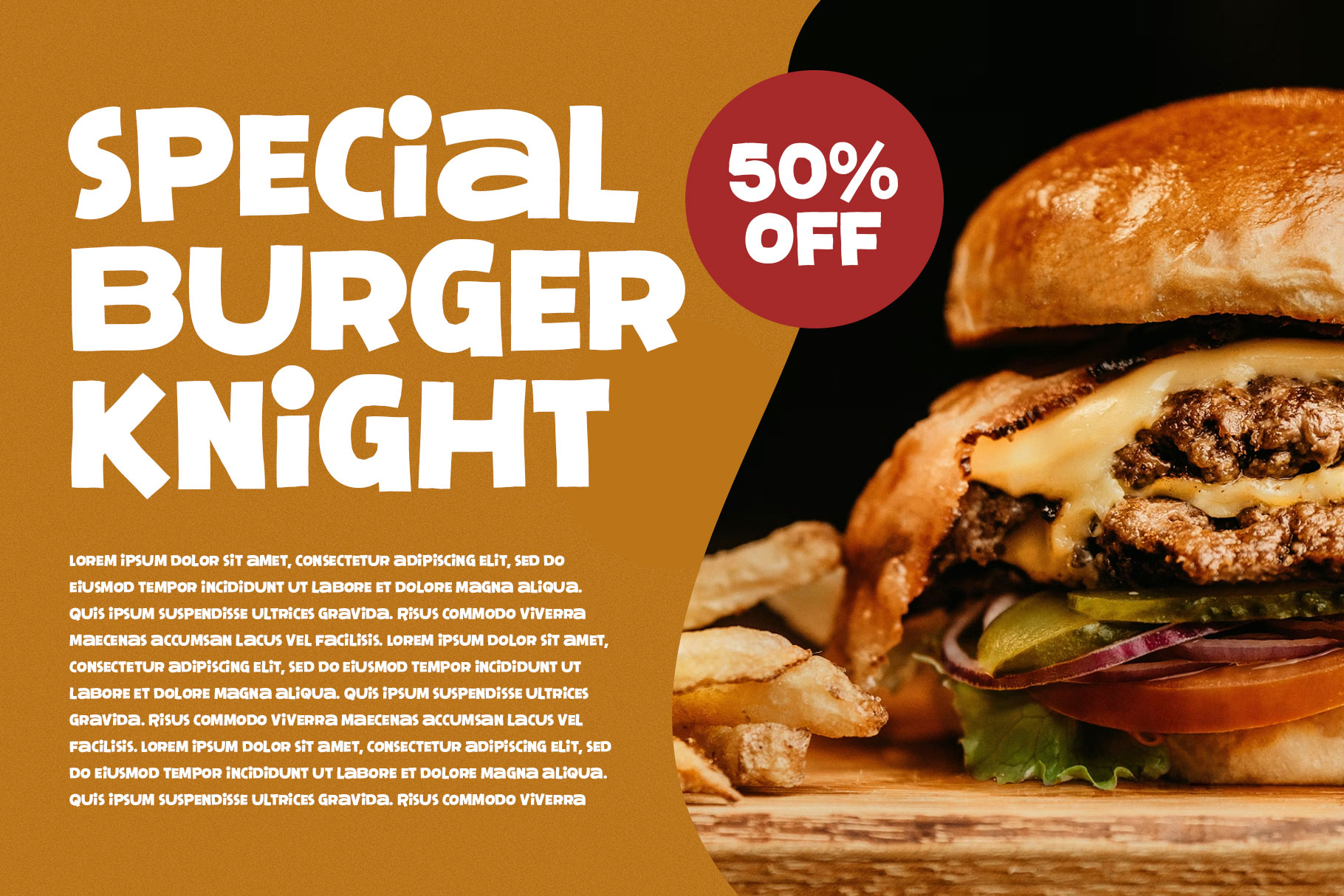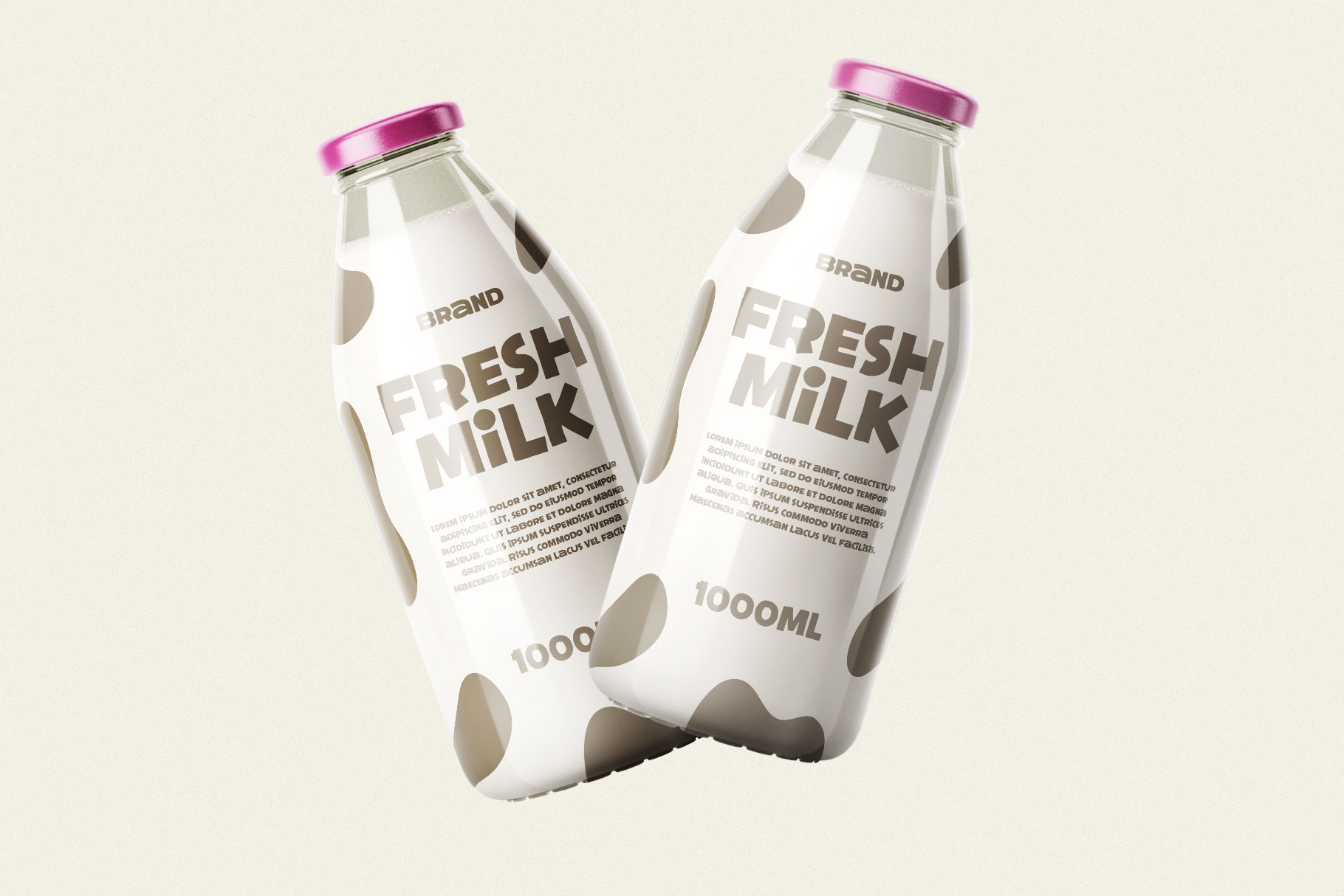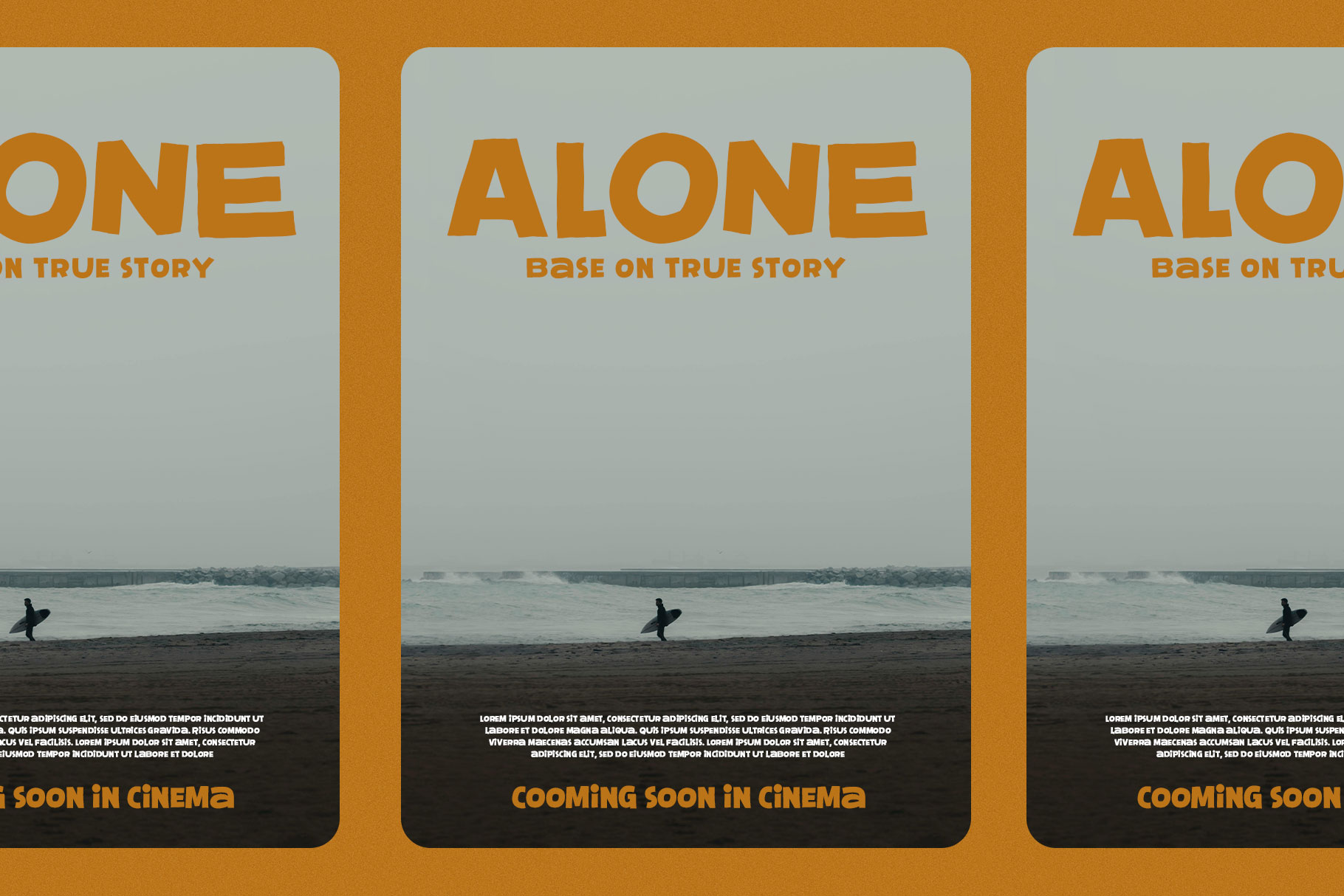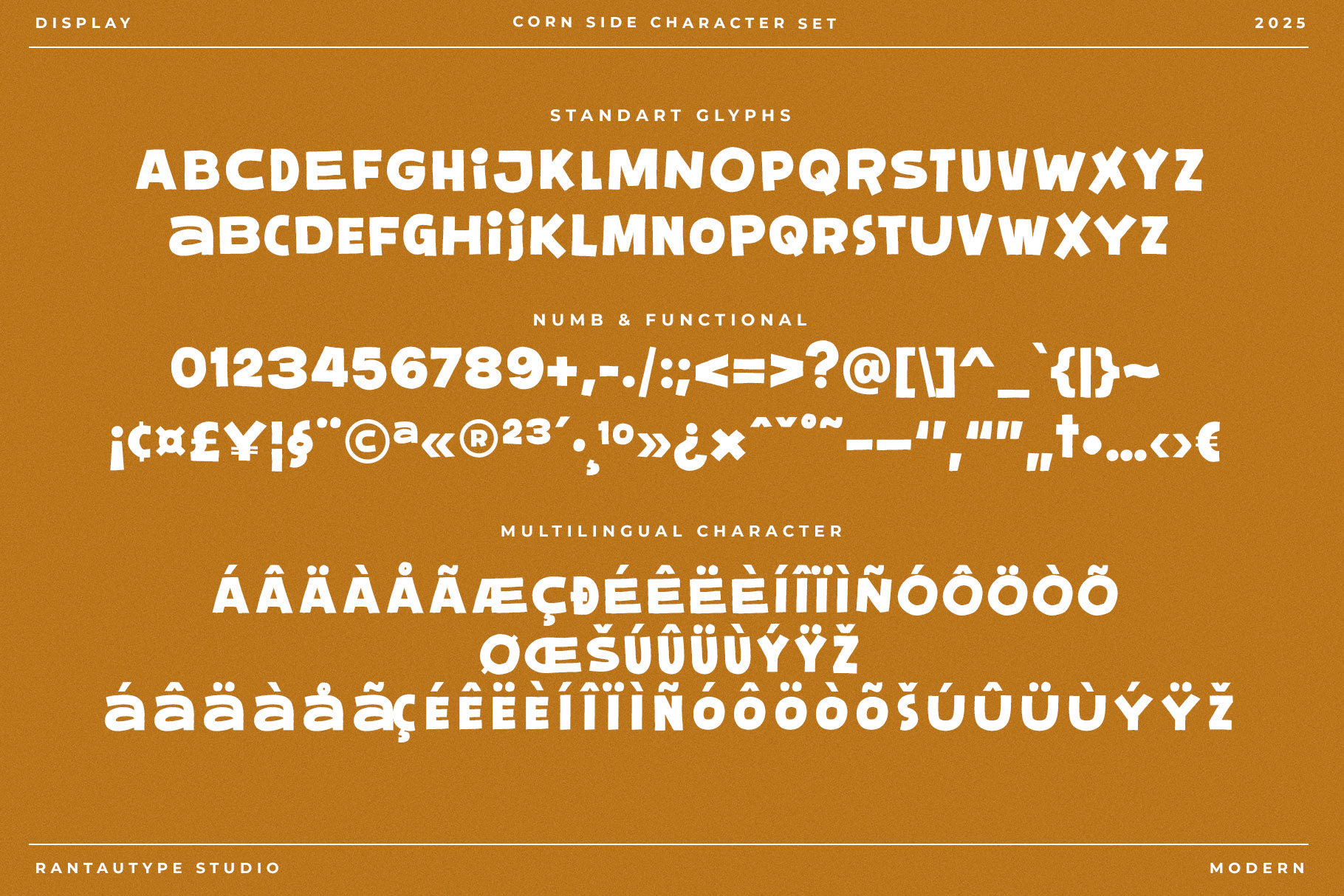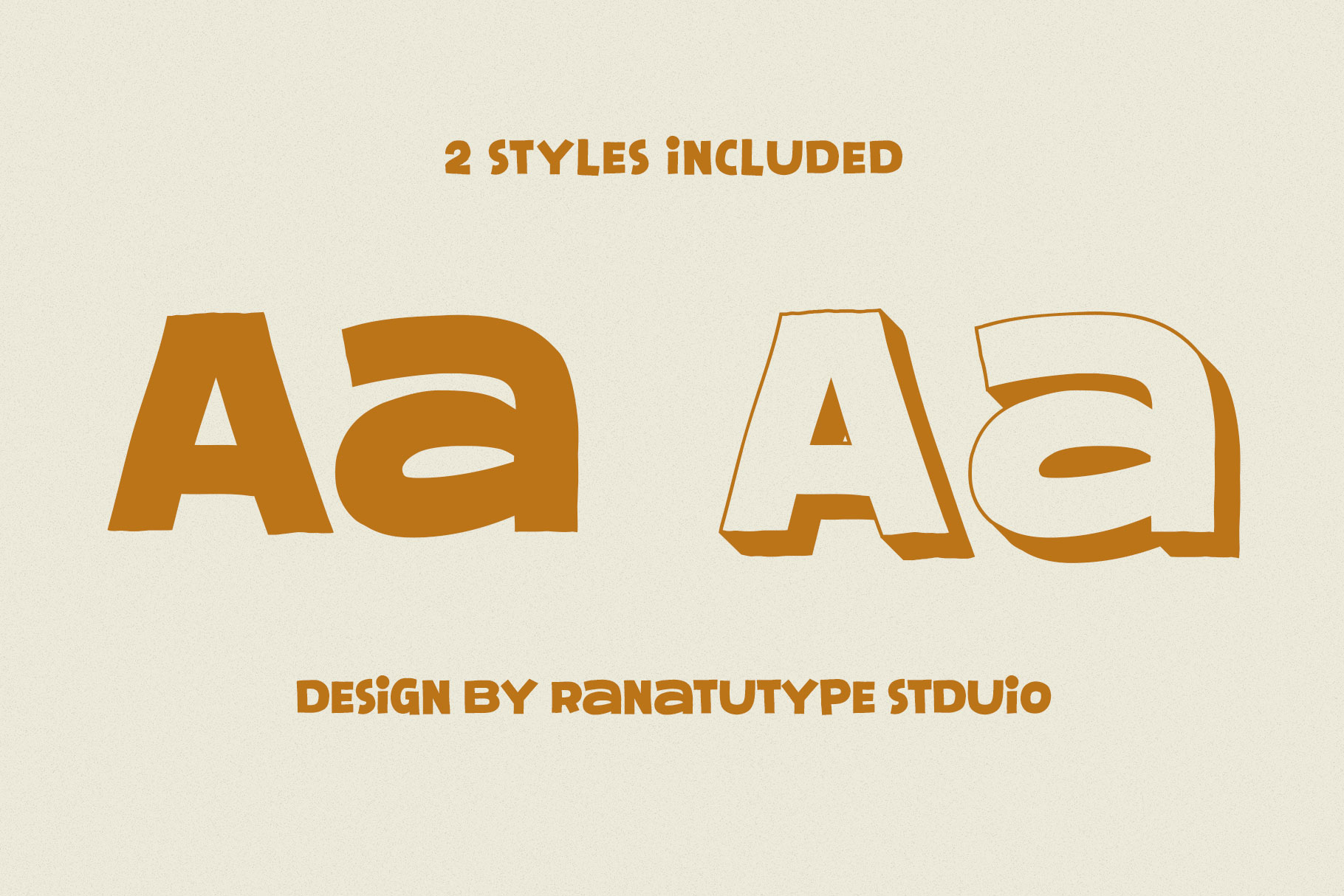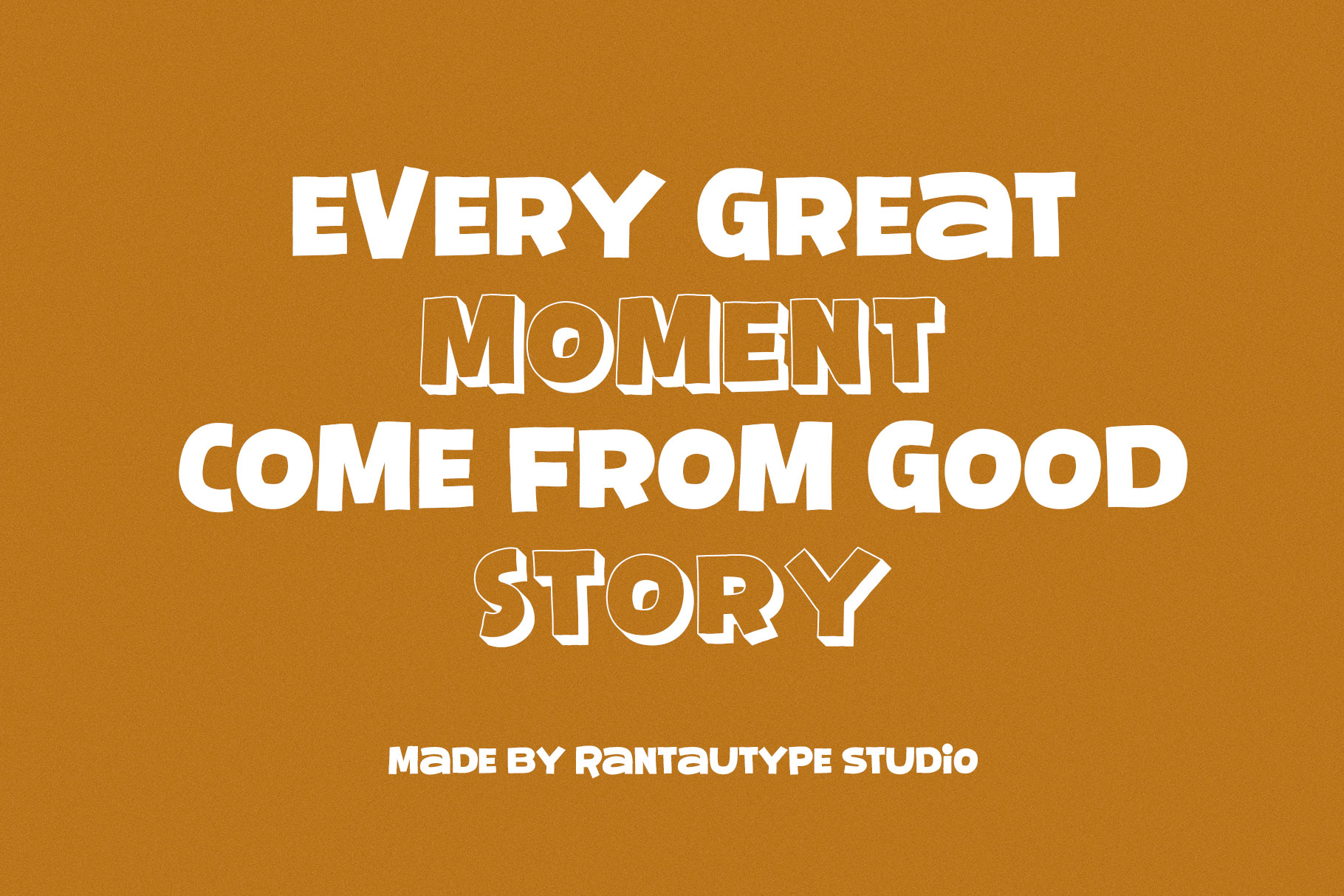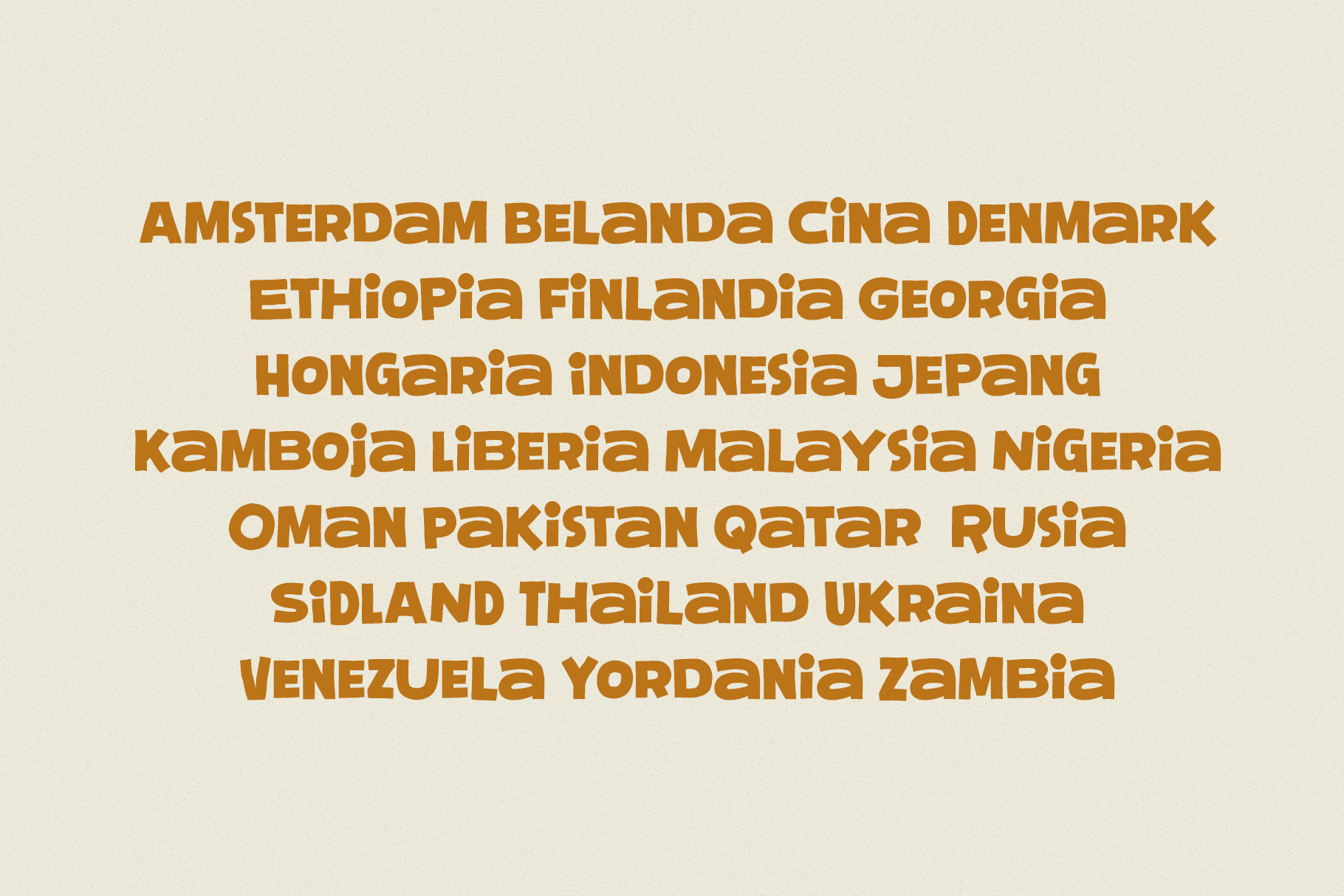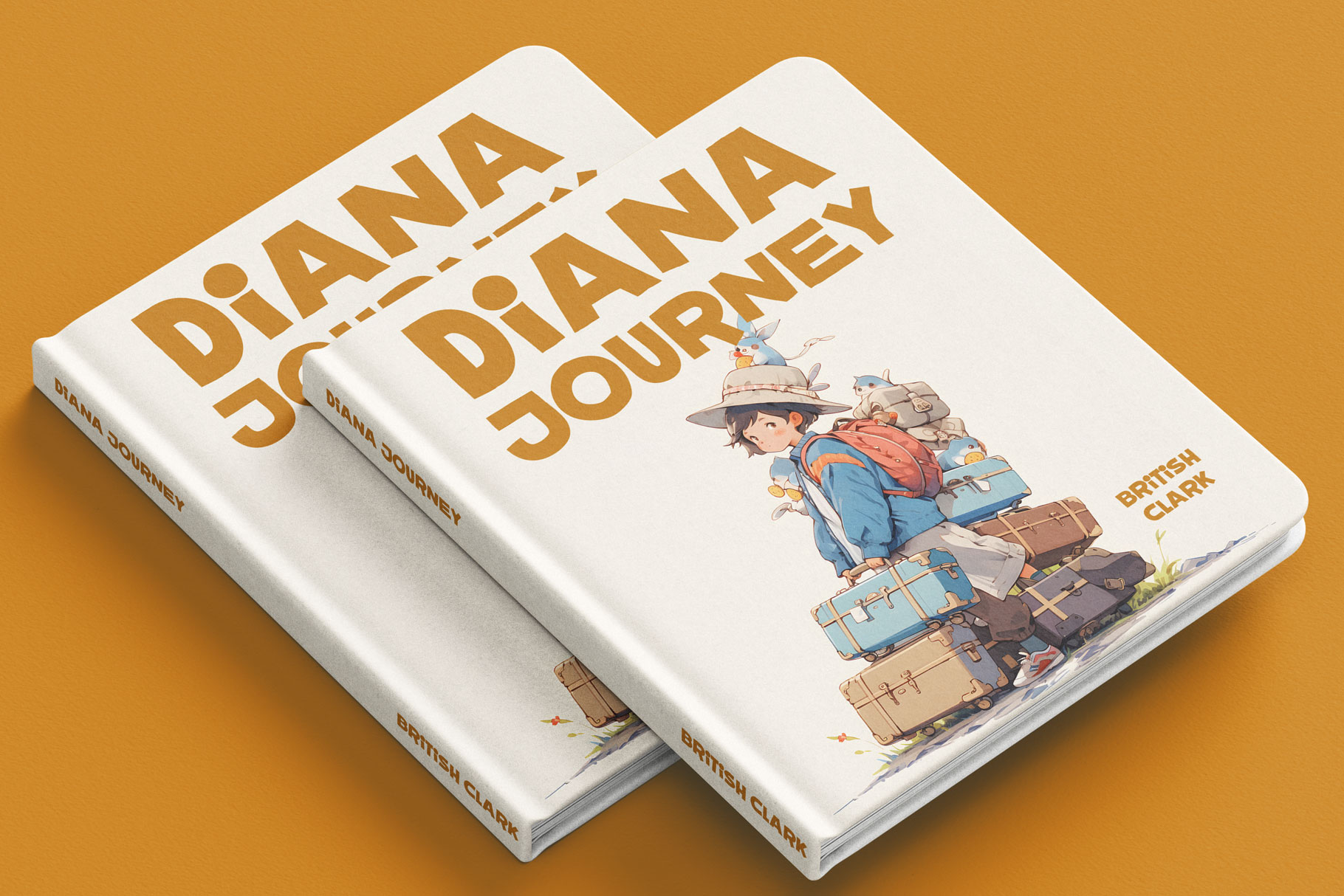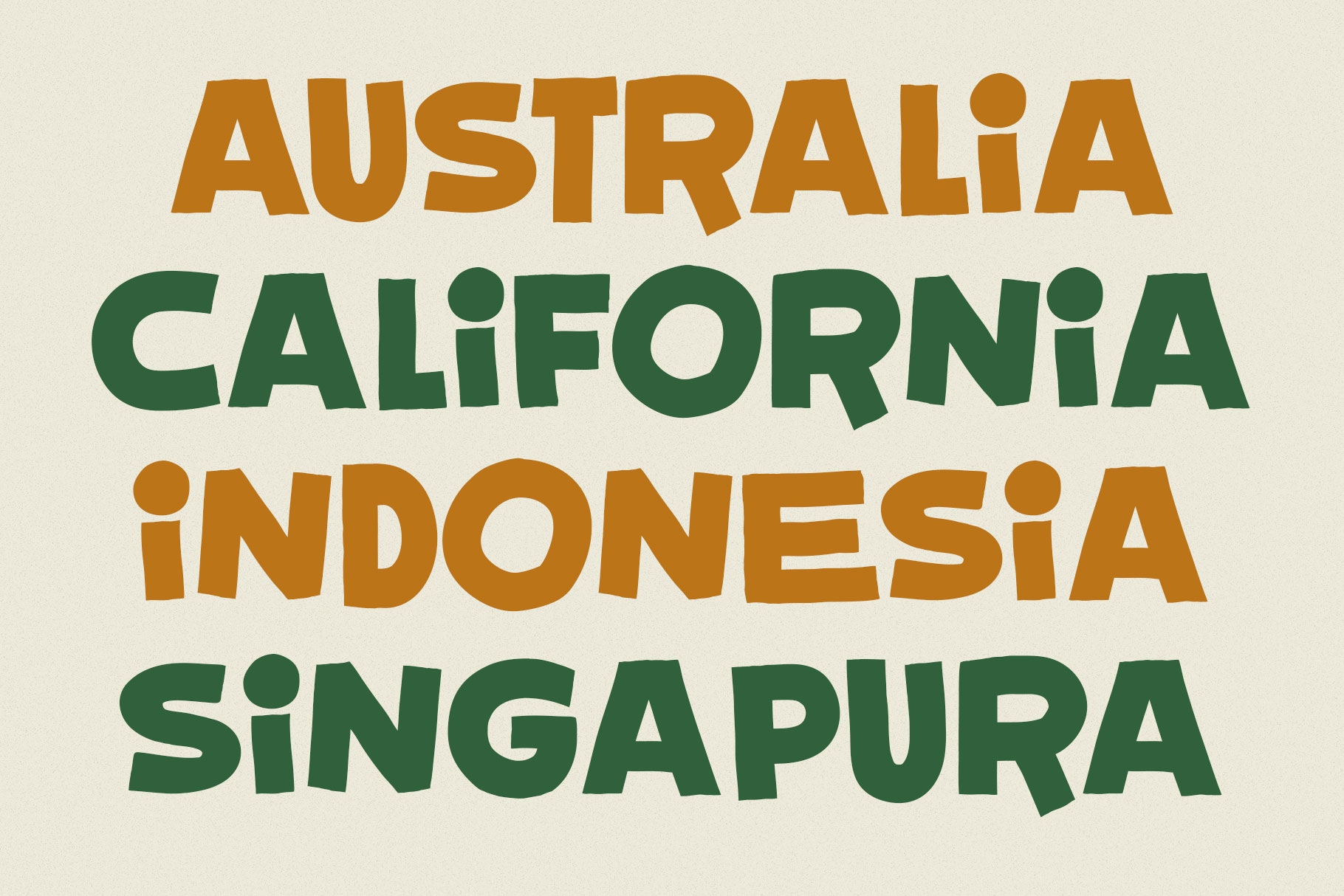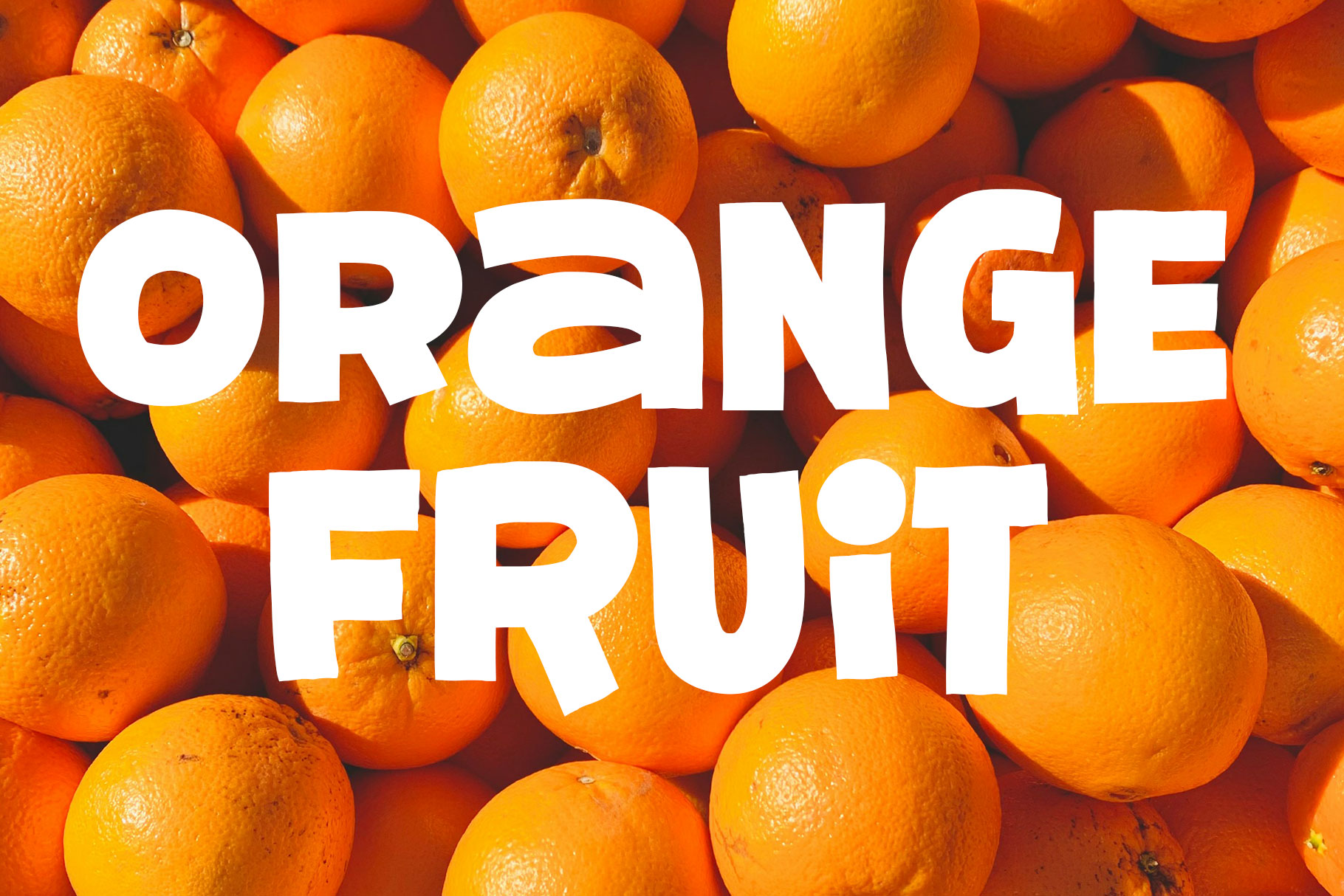
Corn SIde Display Modern Font
Corn Side is modern display font made by rantautype studio. Corn Side is a perfectly choice for any creative endeavor, chic, lifestyle design such as logotype, advertisements, watermark on photography, stationery, branding project, display and magazine, invitation, corporate brand, product design, label, business project and many other project with funcy touch.